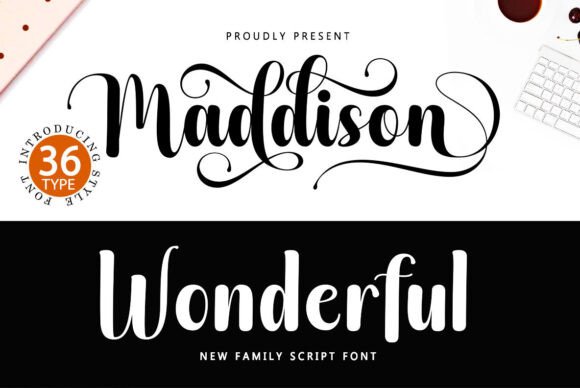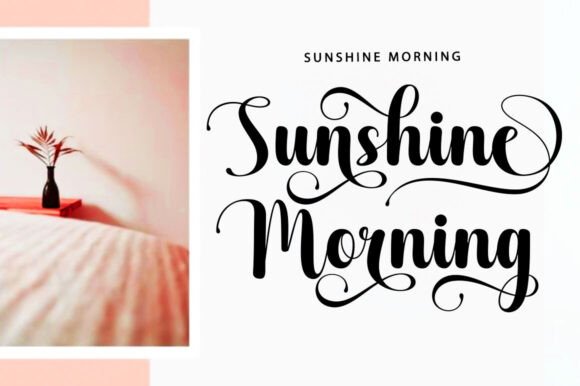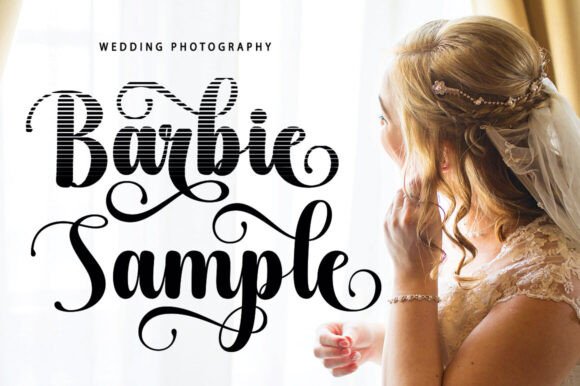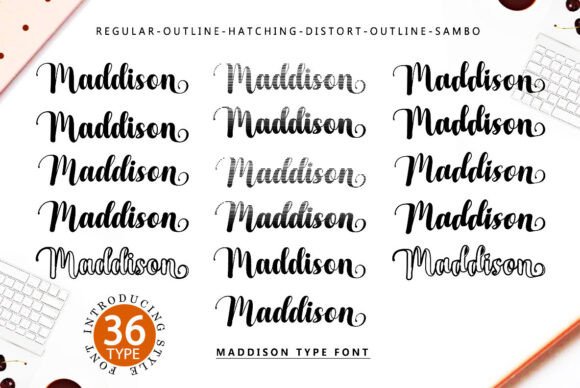
Maddison Wonderful Font
About the Maddison Wonderful Font
Crafted with precision, the Maddison Wonderful Font is ready to bring your ideas to life. Maddison Wonderful Family Font is a modern script font with a classic and elegant touch.
Maddison Wonderful because it is sleek, clean, feminine, sensual, glamorous, simple, and very readable, thanks to its many beautiful letter connections. The classic style is perfect for applying in various formal forms such as invitations, labels, restaurant menus, logos, fashion, makeup, stationery, novels, magazines, books, greeting/wedding cards, packaging, labels, or all kinds of advertising purposes.
Maddison excels in applications requiring a touch of refined elegance, such as logos for luxury brands, wedding invitations, or high-end product packaging. Its readability makes it suitable for short text blocks within brochures or menus, but avoid using it for large bodies of text or UI elements where legibility is paramount.
Pairing Maddison with a clean sans-serif like Montserrat or a geometric sans-serif like Futura provides a strong contrast and enhances readability in designs where both script and sans-serif are used. For a warmer feel, consider pairing it with a serif like Playfair Display.
Maddison’s overall personality is sophisticated and subtly sensual, lending itself to brands emphasizing luxury, femininity, or classic style. Avoid using it for projects requiring a bold, playful, or overtly modern aesthetic.
Maddison Wonderful Font Usage Examples
Maddison Wonderful Font Example